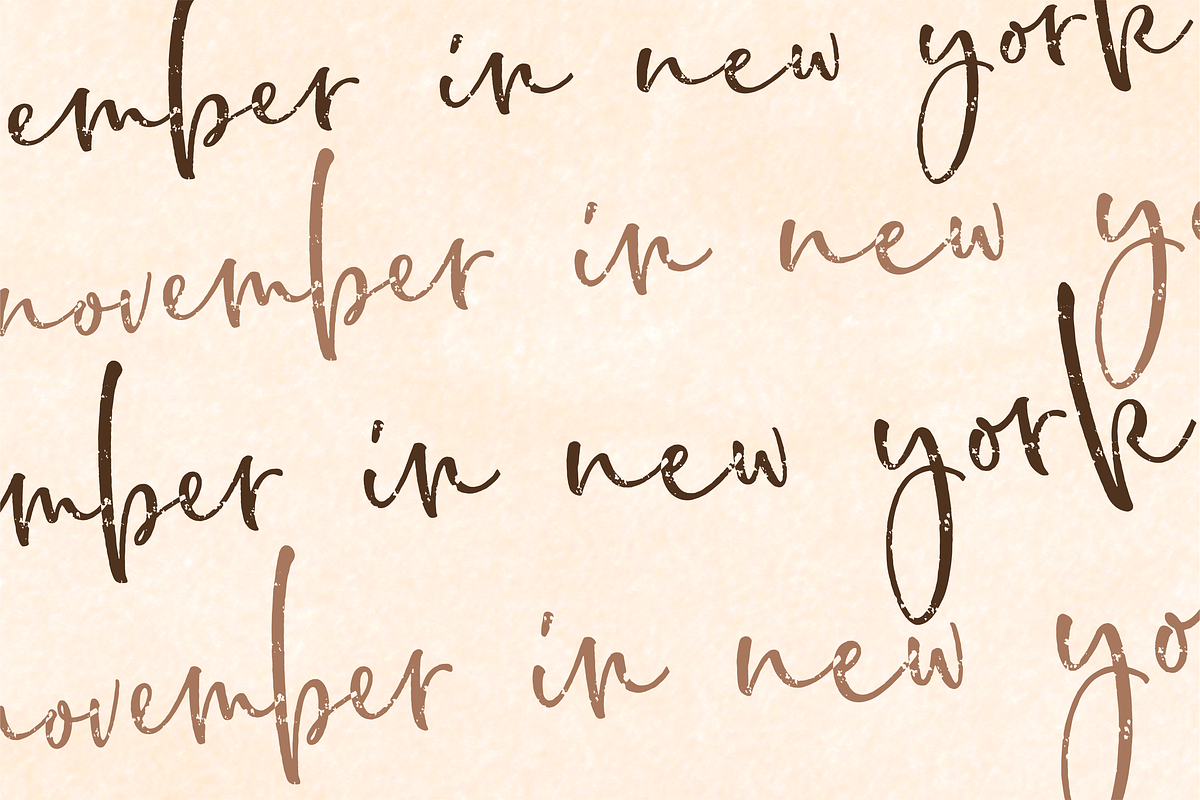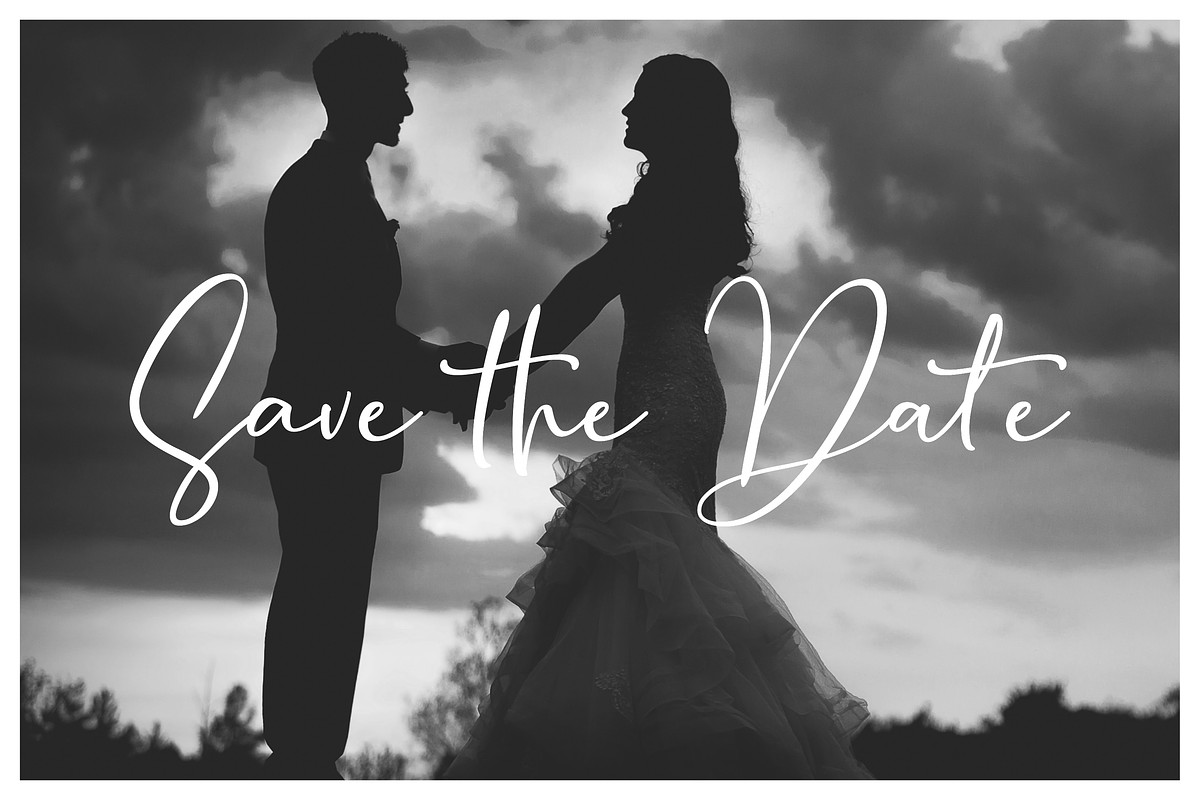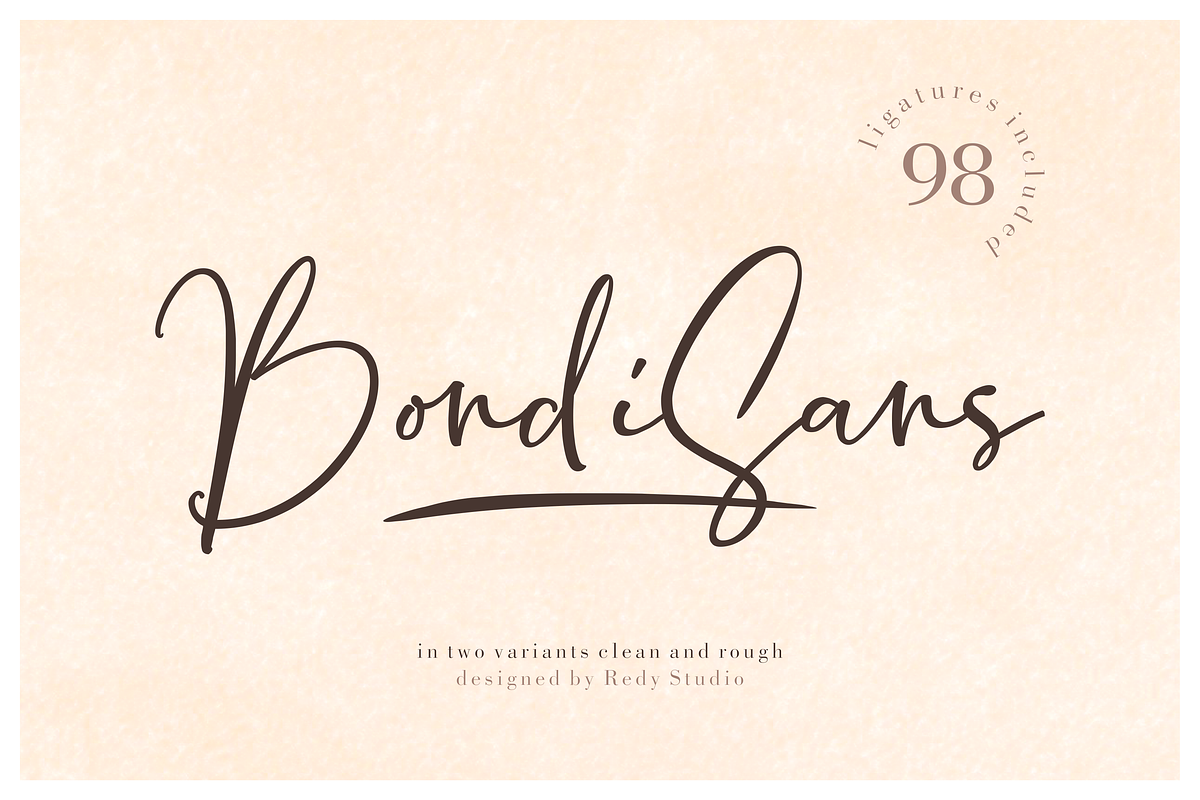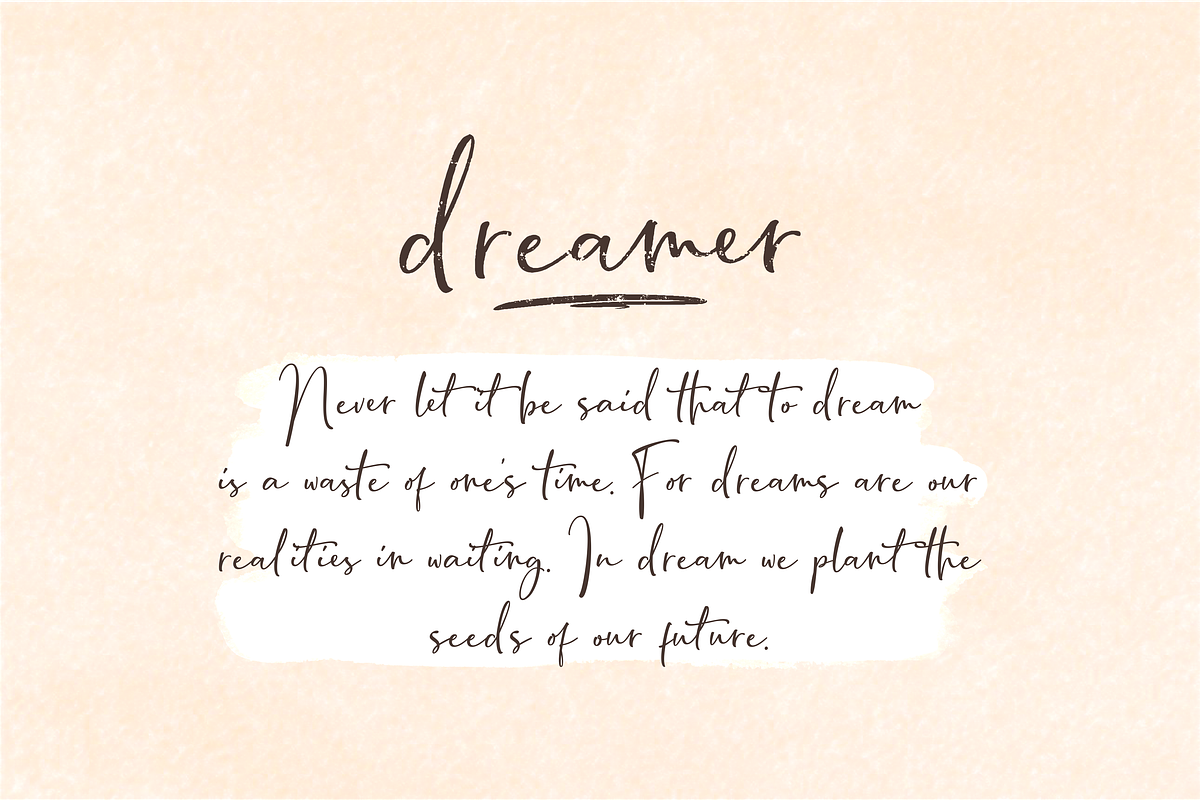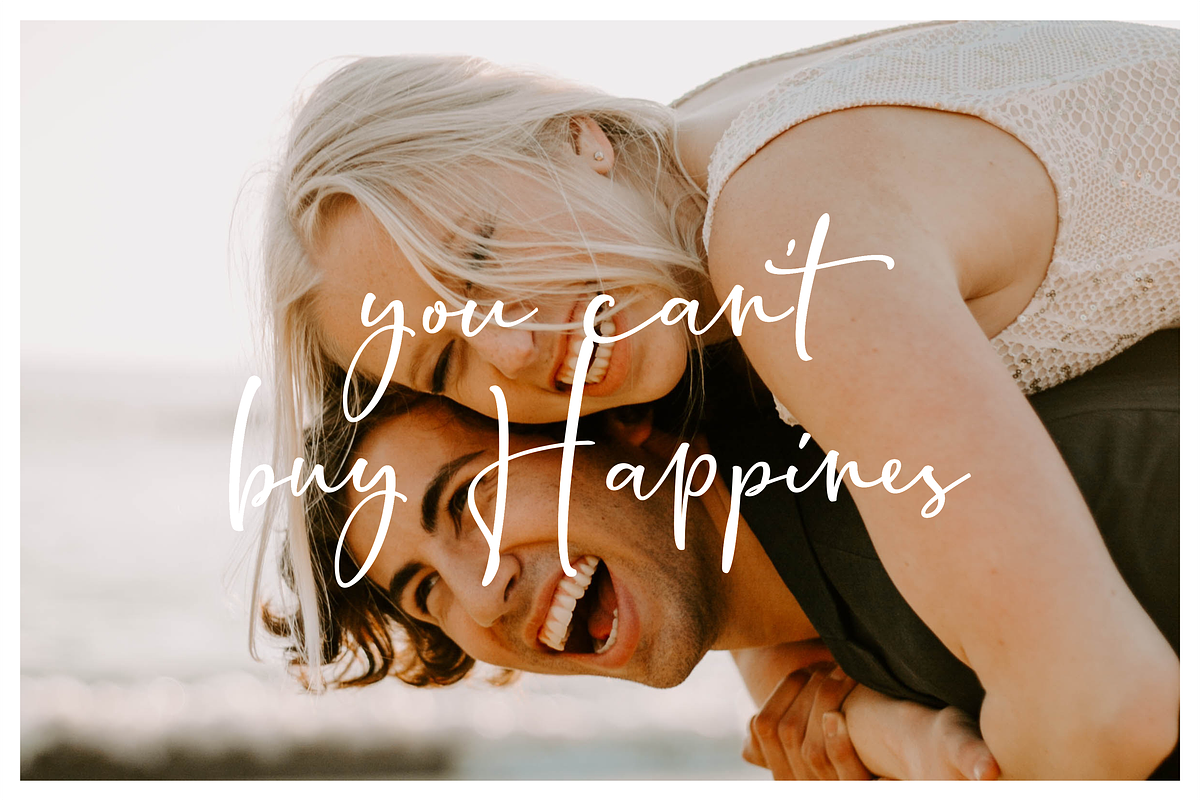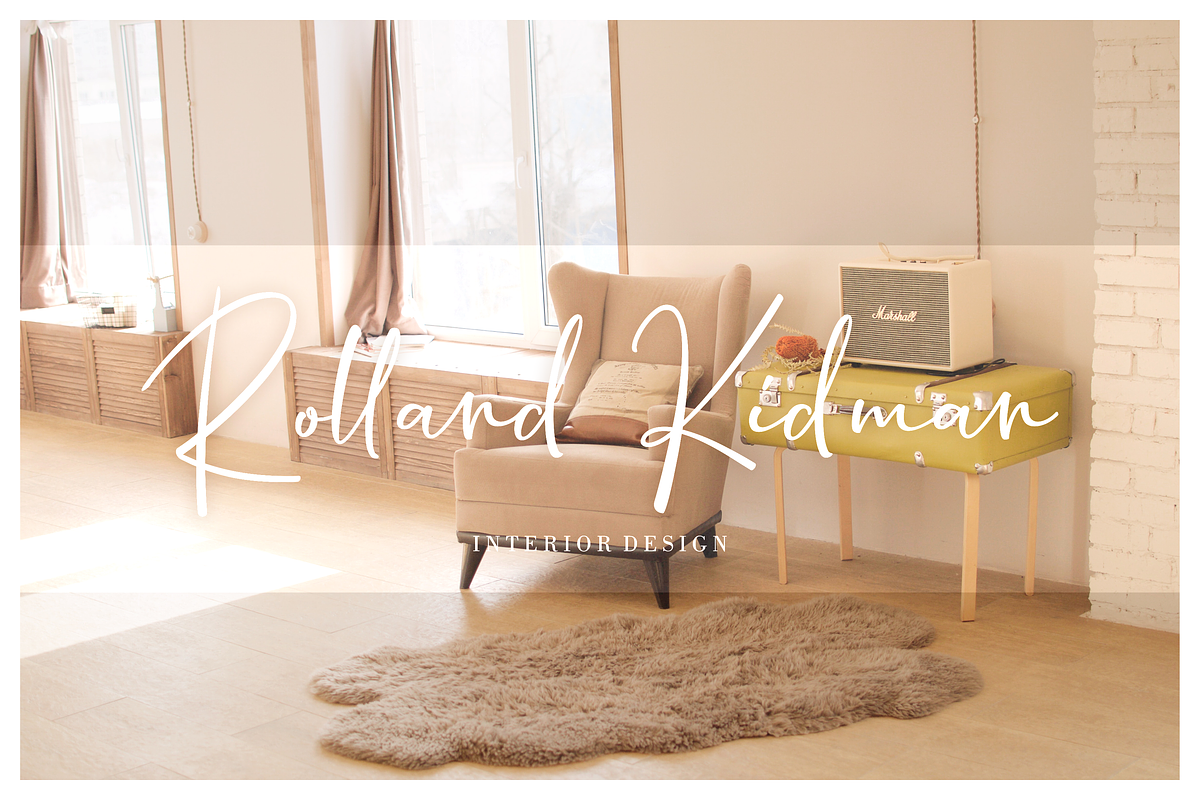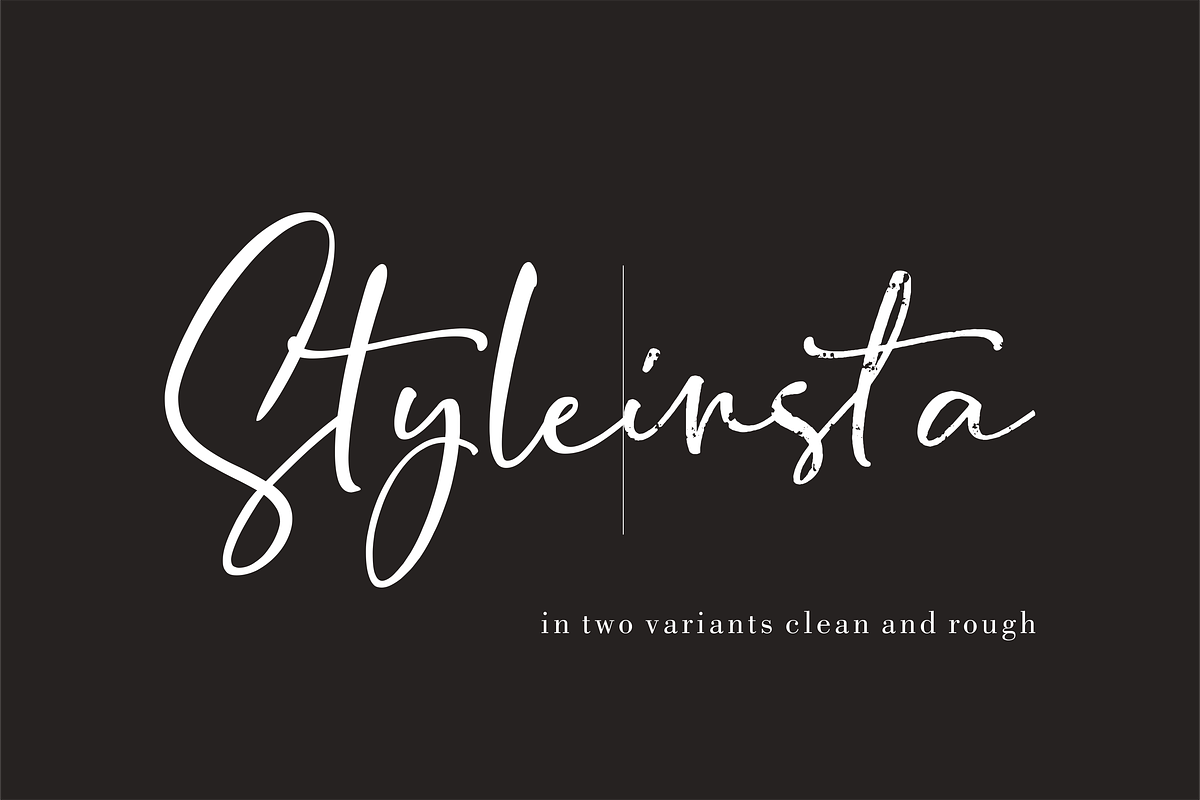
BondiSans - Modern Fonts
Hi, I’m BondiSans! I’m a modern script font with a messy brush and gorgeous bouncy letter, comes with different variants: rough and clean, which are full of ligatures and swashes to give your design that personal and playful touch. Bondisans type is perfect for use in logos and branding projects, T-shirt designs, adding a stylish touch to your design, great for invitations and greeting cards too.
94 Gorgeous ligatures
- 94 Gorgeous ligatures
- Swashes
Why BondiSans - Modern Fonts is worth a look
BondiSans - Modern Fonts by RedyStudio fits naturally into Branding, posters, packaging, typography.